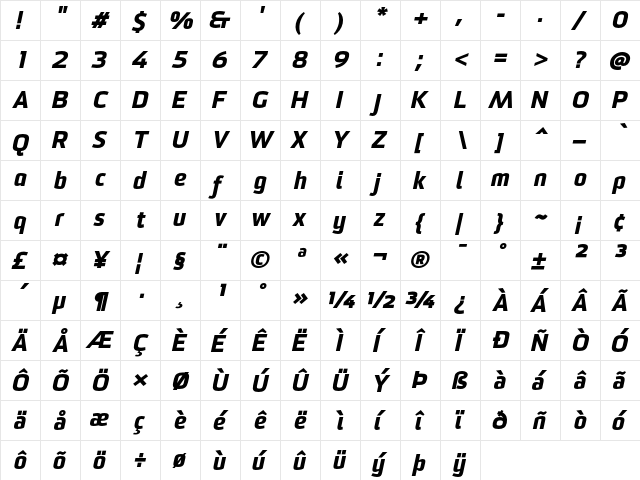
Sommet Heavy Italic Heavy Italic
| Style | Heavy Italic |
| Foundry | Jeremy Dooley |
Design Context for Sommet Heavy Italic Typeface
Sommet Heavy Italic offers clean, dependable letterforms without strong stylistic allegiance, making it a practical choice for designers who need flexibility. The slanted form adds forward momentum and visual energy.
Pro Tip: Use Sommet Heavy Italic for emphasis, pull quotes, and subheadings where its slanted energy can add rhythm to the layout.